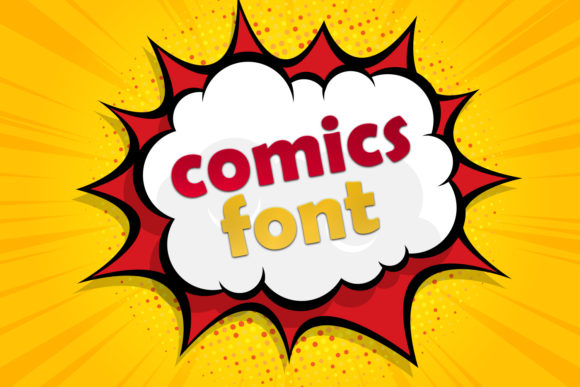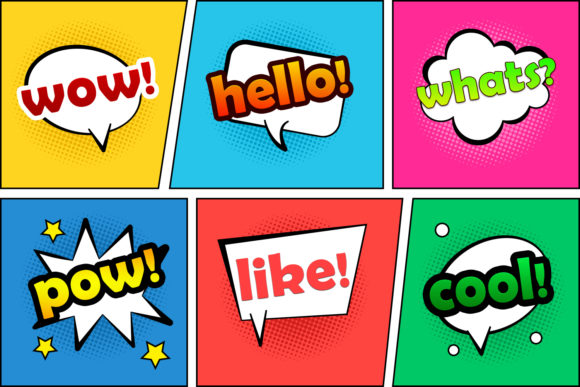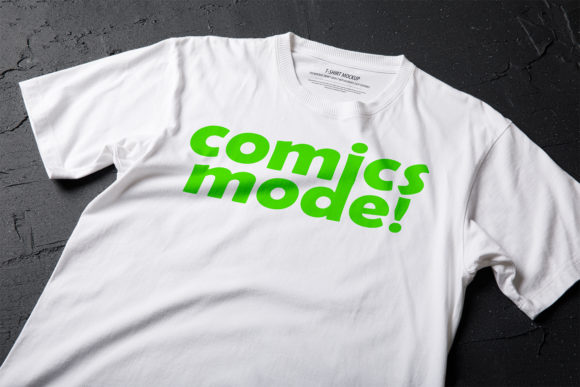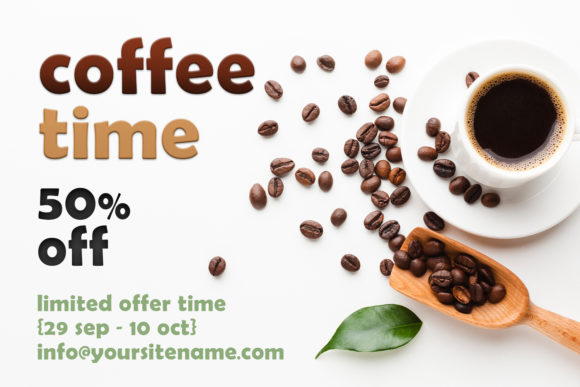
Comics Font
About the Comics Font
Unleash your creativity with Comics Font, a versatile font perfect for a wide range of applications. Comics embodies fun, quirkiness and authenticity. This enchanting display font will turn any creative idea into a true standout. Get creative with its childlike playfulness, and use it to brighten up any kids or school project!
Comics Font’s playful energy makes it ideal for headlines, posters, and children’s book titles. Its quirky charm also works well in branding for playful businesses, such as toy stores or ice cream shops. However, avoid using it for body text or lengthy paragraphs; its informal nature reduces readability in extended use.
Pair Comics Font with a clean sans-serif like Open Sans for a balanced contrast, or a more geometric sans-serif such as Futura for a modern feel. For a slightly more sophisticated look, consider pairing it with a delicate script font.
The font’s overall personality is undeniably bold and friendly, radiating youthful energy. Avoid using it for projects requiring sophistication or seriousness; its inherent playfulness may clash with such contexts.
Comics Font Usage Examples
Comics Font Example